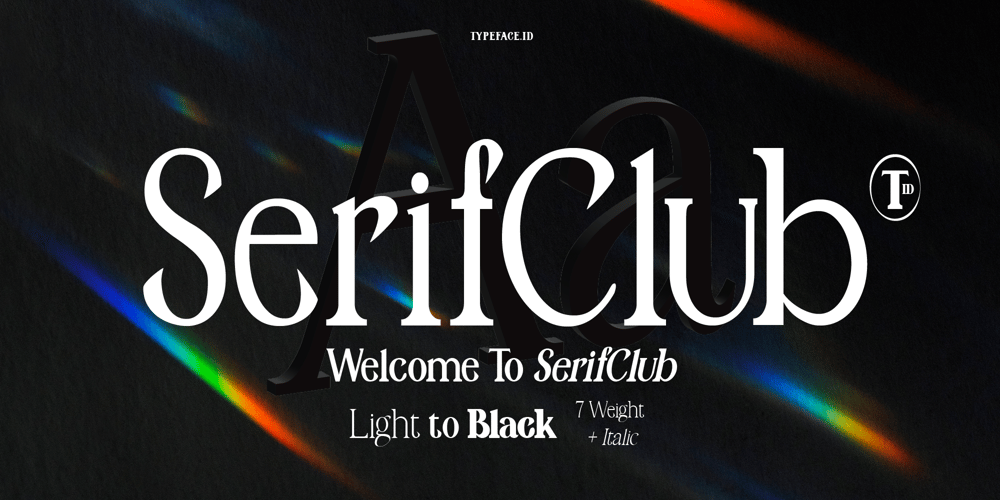
SerifClub Font Family was designed by Khairil Anwar and published by ID Typeface. SerifClub contains 14 styles and family package options. ID SerifClub a modern serif font that effortlessly combines contemporary design with timeless elegance. This font stands out with its refined and sophisticated appearance, making it an ideal choice for a wide range of design projects.ID SerifClub with 7 different styles ranging from Light to Black, plus matching italics for each weight, ID SerifClub offers the flexibility to create diverse and dynamic layouts.